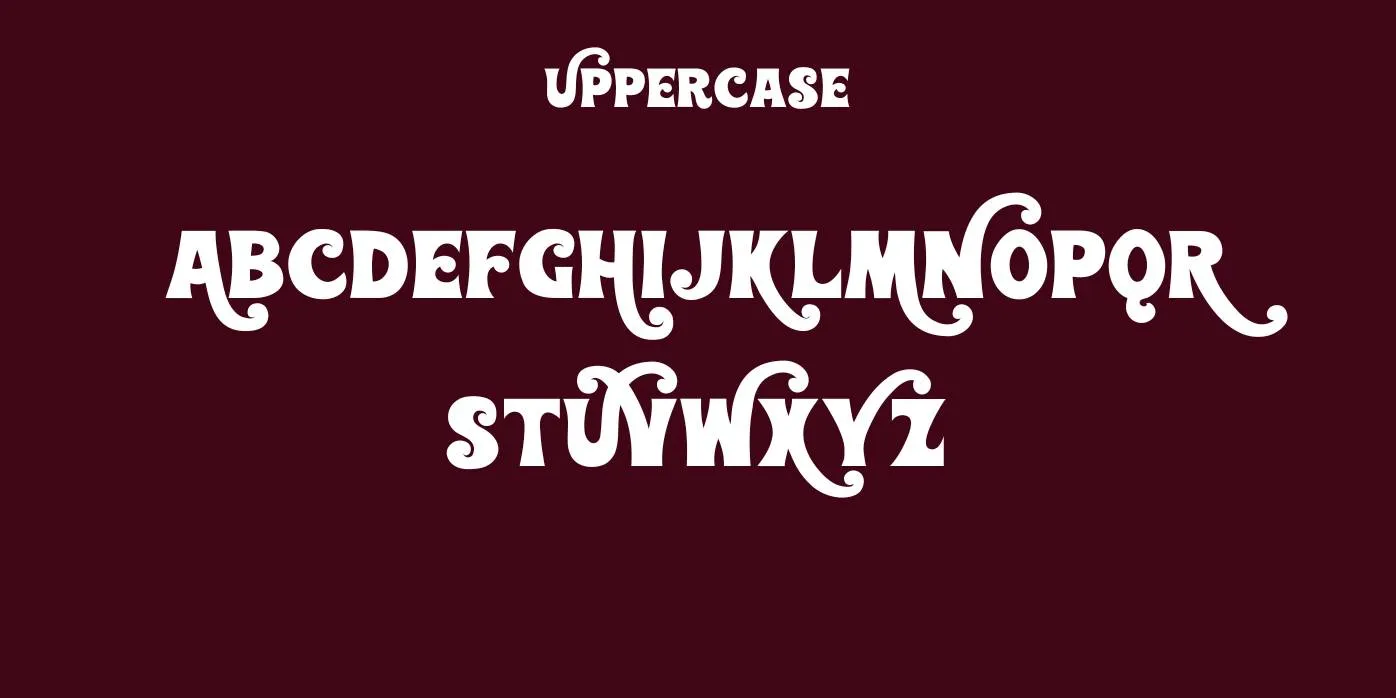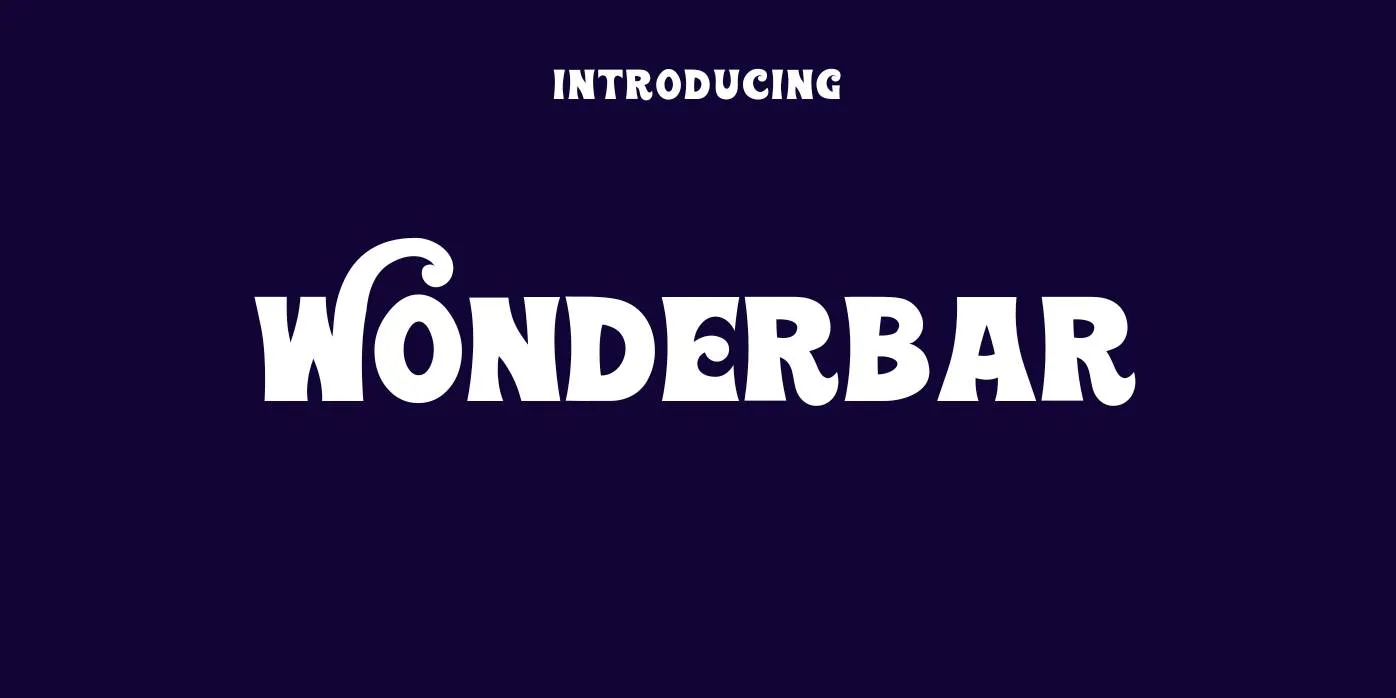
Wonderbar Font
Now, we discuss detailed information about Wonderbar Font. It was designed by Sharkshock. Unicode supported by this font is 2.0 and BMP only. You can utilize this outstanding typeface for various kinds of designs, and purposes.  The weight of the font is Bold and its width is medium (normal).
Usage It is a very wonderful fancy font and it can be used for making so many projects. This font has characters, symbols, small letters, capital letters, punctuations, and special characters which can be used for making so many projects. It is mostly popular for making advertisements and branding purposes. You can also make many display typography and digital typefaces.
This font Is also a good choice for attractively making movies and cartoon titles. It can be used for making book covers with a stylish look. It can also be used for making titles for different projects. Nowadays designer still uses this font to make books with a modern look.